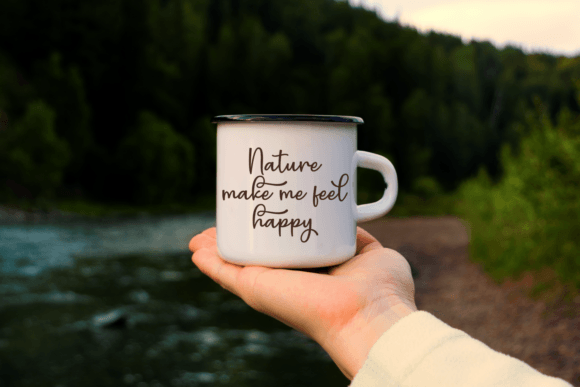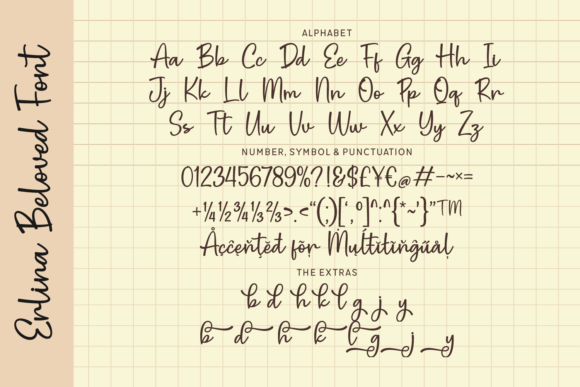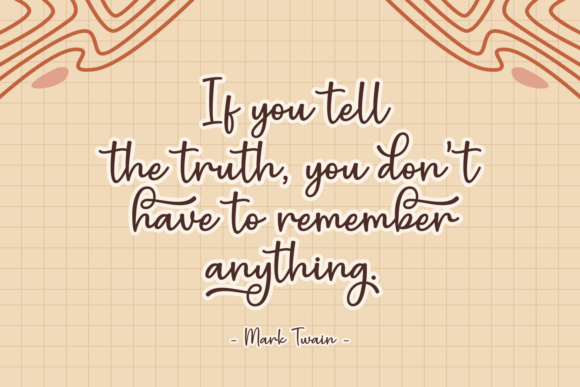
Introduction to Erlina Beloved Font
As a designer, there’s nothing quite like the feeling of finding the perfect font to bring a project to life. For me, it was a late-night brainstorming session, surrounded by scraps of paper and a computer screen filled with endless font options. And then, like a breath of fresh air, I stumbled upon the Erlina Beloved Font. Its elegant, flowing letters instantly captured my attention, and I knew I had to learn more.
The Erlina Beloved Font is a true design resource, offering a high-quality, soft and friendly style that’s perfect for adding a personal touch to invitations, greeting cards, and other creative projects. With its transparent background and intricate curves, it’s a versatile font that can elevate even the simplest of designs.
Key Features of Erlina Beloved Font
- Unique Hand-Drawn Design: The Erlina Beloved Font features a beautiful, hand-drawn design that makes it perfect for creative projects that require a personal touch.
- High-Quality Font: This font is designed with high quality in mind, making it ideal for use in various design resources, including logos, posters, and other visual materials.
- Transparent Background: The font comes with a transparent background, allowing designers to easily place it over any image or background without worrying about the background color.
- Perfect for Creative Projects: The Erlina Beloved Font is perfect for use in creative projects that require a touch of elegance and sophistication, including wedding invitations, birthday cards, and other special occasion designs.
Honest Review: Erlina Beloved Font
I recently stumbled upon the Erlina Beloved Font, and I must say it’s been a delightful addition to my design resources. This charming font has a whimsical feel to it, making it perfect for creative projects that require a touch of elegance.
Here are some things that work well with the Erlina Beloved Font: ✨
- High-quality design: The font is well-crafted, with smooth lines and a transparent background that makes it easy to work with.
- Versatile: This font can be used for a wide range of creative projects, from invitations to digital art.
However, I did encounter a few limitations with the Erlina Beloved Font: ⚠️
- Limited character set: The font doesn’t have a comprehensive character set, which may limit its usability for certain projects.
- Not ideal for large text: The font is best suited for small to medium-sized text, as it can become difficult to read when used for larger text sizes.
Overall, I’m impressed with the Erlina Beloved Font. Its unique design and high-quality craftsmanship make it a valuable addition to any design resource library. While it may have some limitations, it’s definitely worth considering for your next creative project.
The Erlina Beloved Font is a high-quality design resource ideal for creative projects. Its unique and elegant style makes it perfect for various applications, from invitations to social media graphics.
To get the most out of the Erlina Beloved Font, use it with a transparent background to create a clean and elegant look. Experiment with different font sizes and styles to add depth and visual interest to your designs.
Is the Erlina Beloved Font a high-quality design resource?
Yes, the Erlina Beloved Font is a high-quality design resource that offers a unique and elegant style. With its clear and legible characters, it’s an excellent choice for designers working on creative projects that require a sophisticated and professional look.